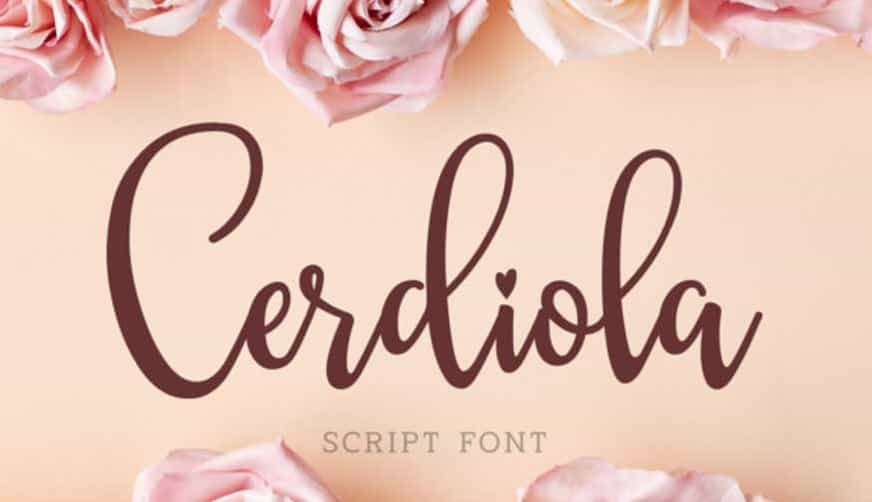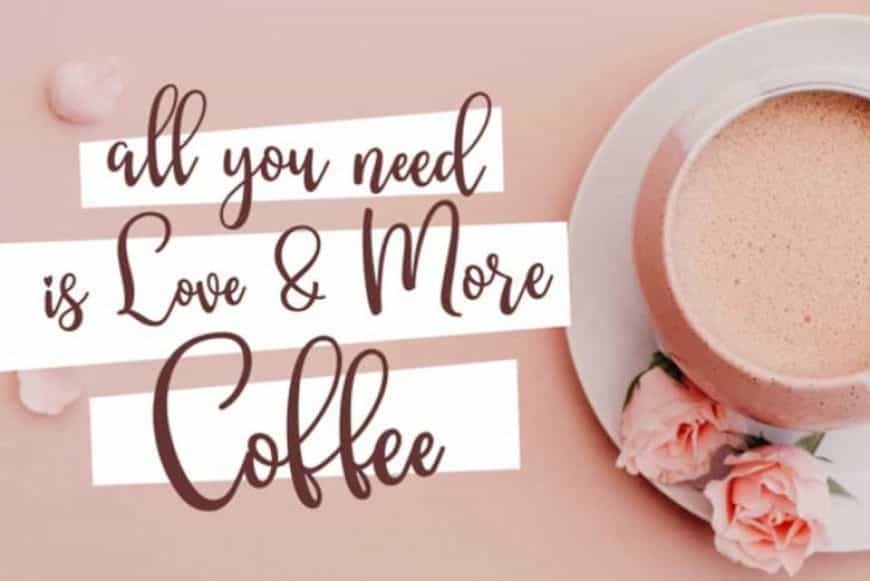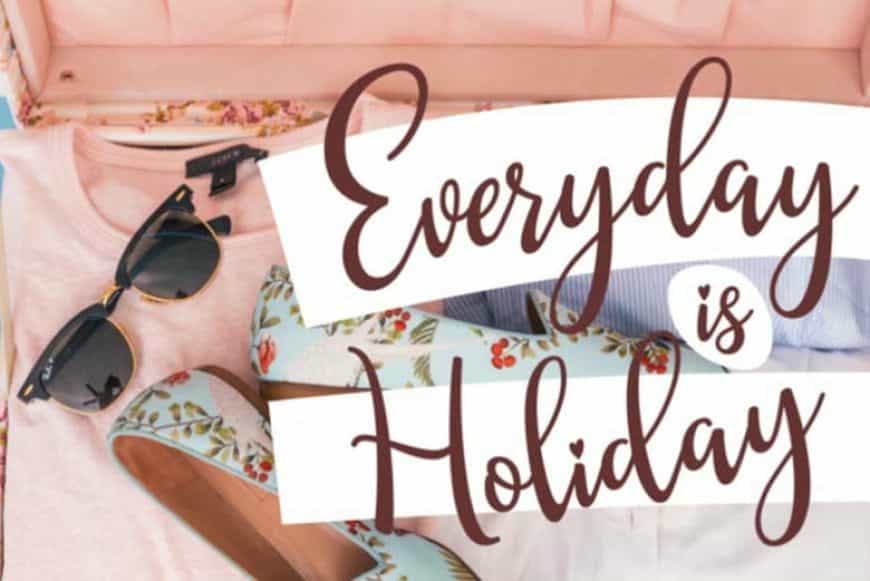
Cerdiola is a hand lettered script font that is simply gorgeous. The curves are delicate and feminated in the very best sense of feminine appeal for how you need to make your own special design.